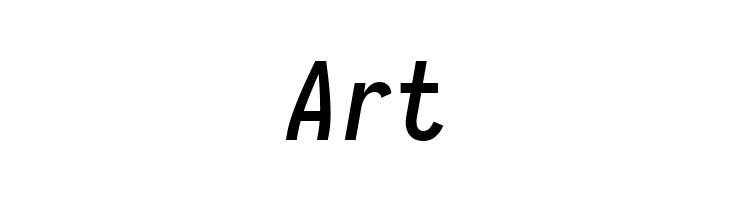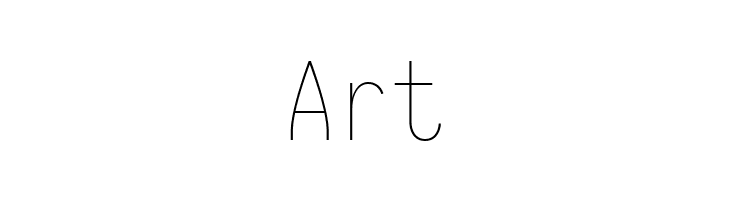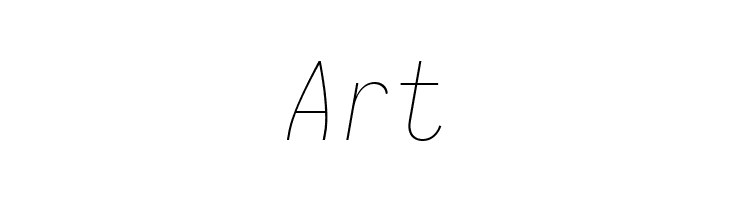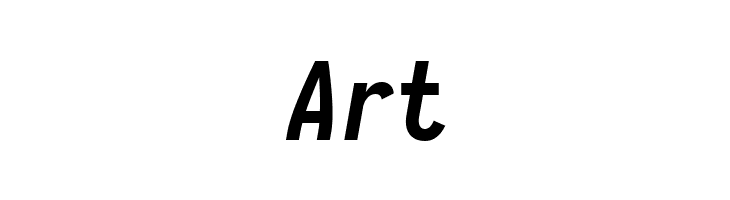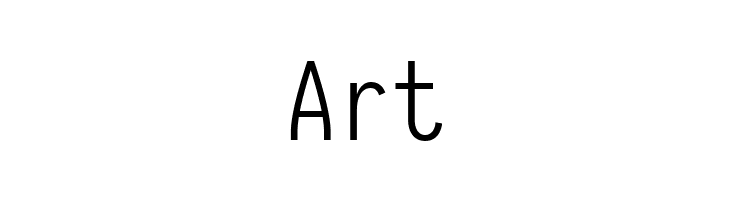
A modern, monospaced font with an extra light weight and geometric design.
A clean, extra-light italic monospaced font with a modern aesthetic.
A modern, monospaced italic font with medium contrast and clean lines.
A clean, monospaced font with a modern and geometric design.
A modern, light, and italic sans-serif font with a clean design.
A clean, monospaced font with geometric influences and consistent character width.
A modern, italic sans-serif font with medium contrast and balanced spacing.
A thin, monospaced font with a minimalist and modern design.
A thin, italicized monospaced font with a modern and minimalist design.